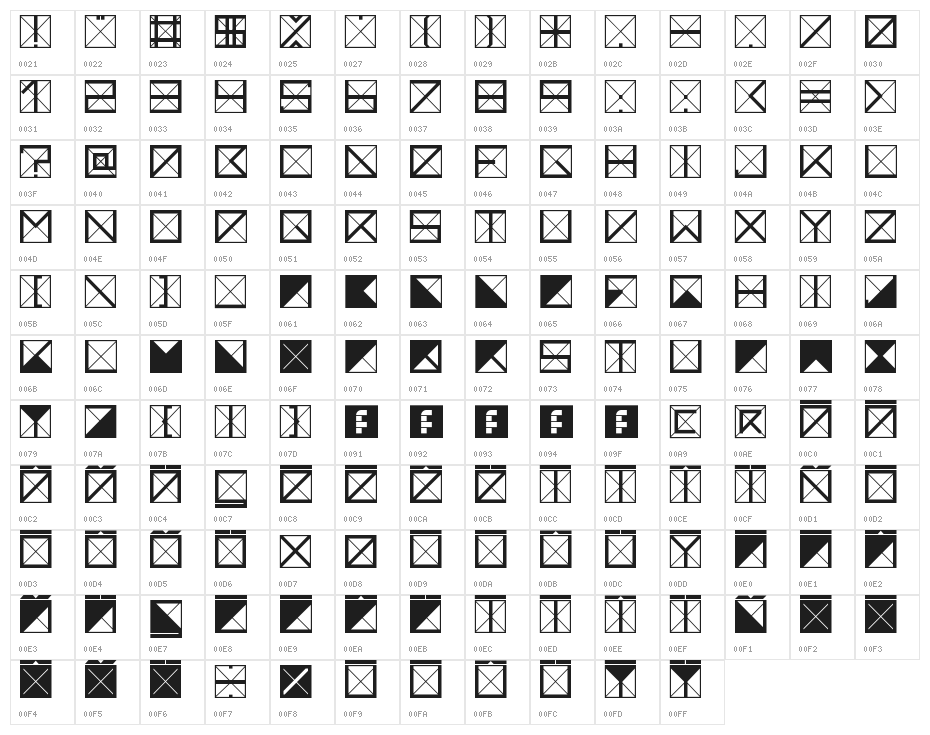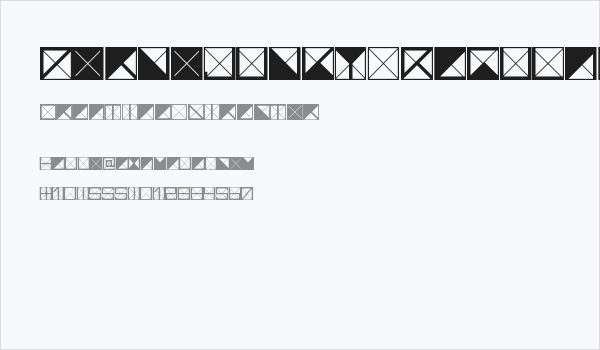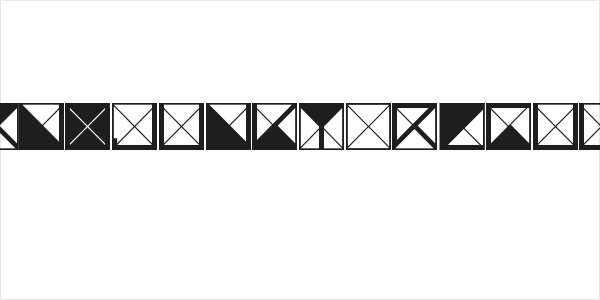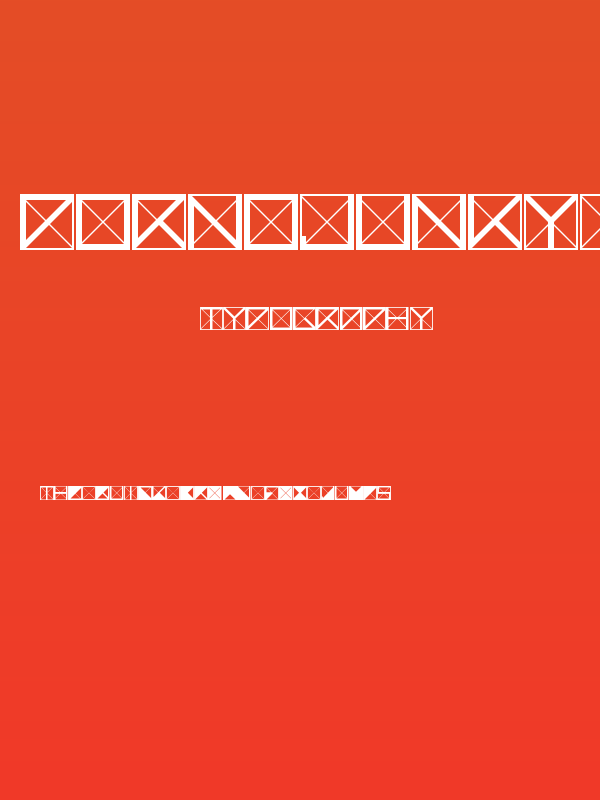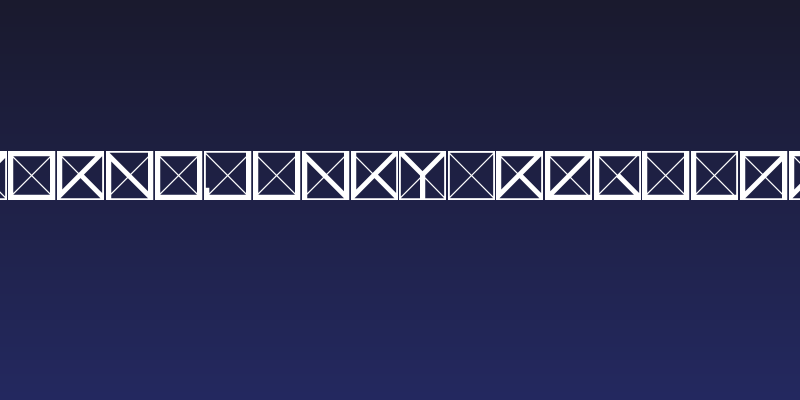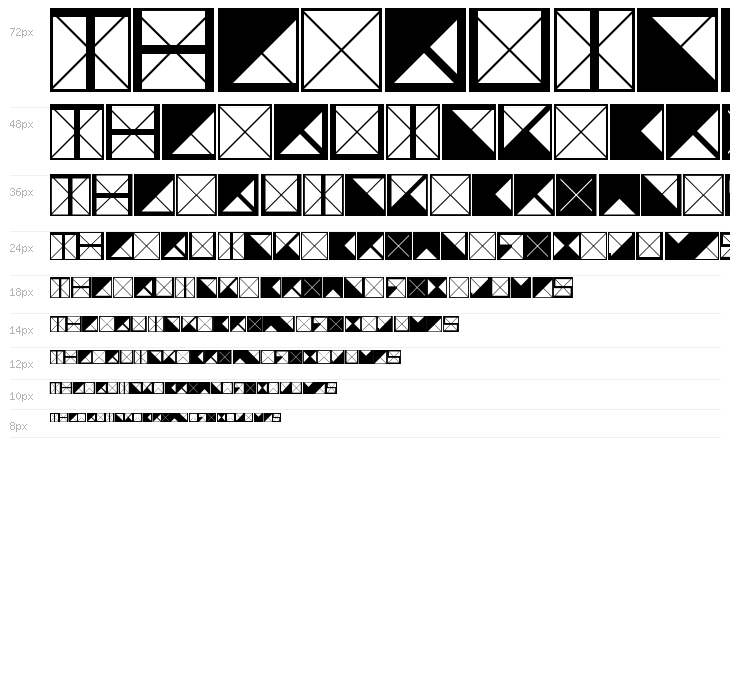
PornoJunky Regular Font
PornoJunky Regular Description
This font features a highly geometric and abstract design, characterized by bold, intersecting lines and shapes that form each character. The letters are enclosed within square frames, creating a distinct and modern look. The use of negative space is prominent, with each character appearing as a combination of filled and empty areas, resulting in a striking visual contrast. The overall aesthetic is reminiscent of abstract art, making it a unique choice for creative projects. The font's style is unconventional and eye-catching, suitable for making bold statements in design.
| Overall Style | Modern, Abstract |
| Use Case | Logos, Headlines, Artistic Designs |
| Proposed Projects | Ideal for modern art projects, avant-garde posters, album covers, and experimental branding. |